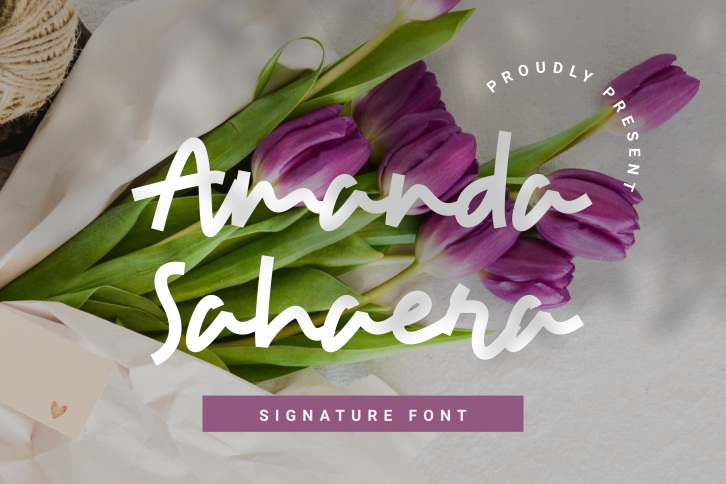
Amanda Sahaera is a romantic handwritten font featuring playful characters and a flowy style! It is suitable for wedding invitations, birthday cards, magazines, books, watermarks, quotes, and so much more!